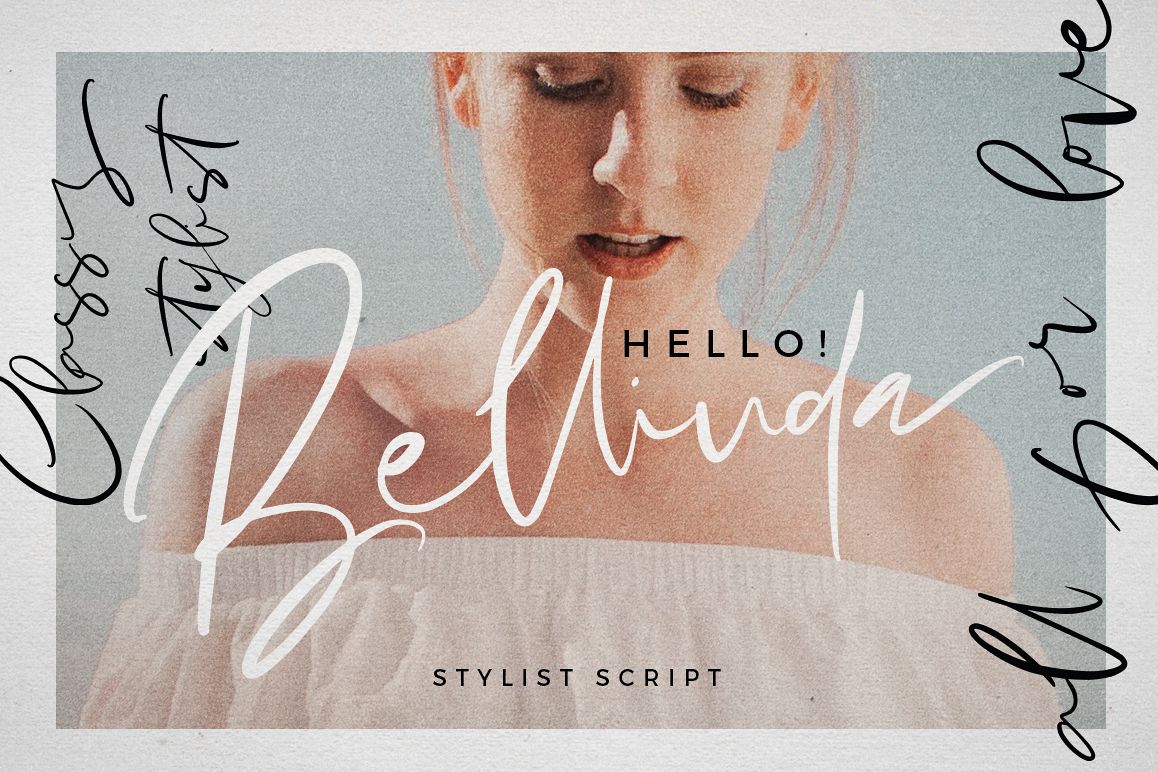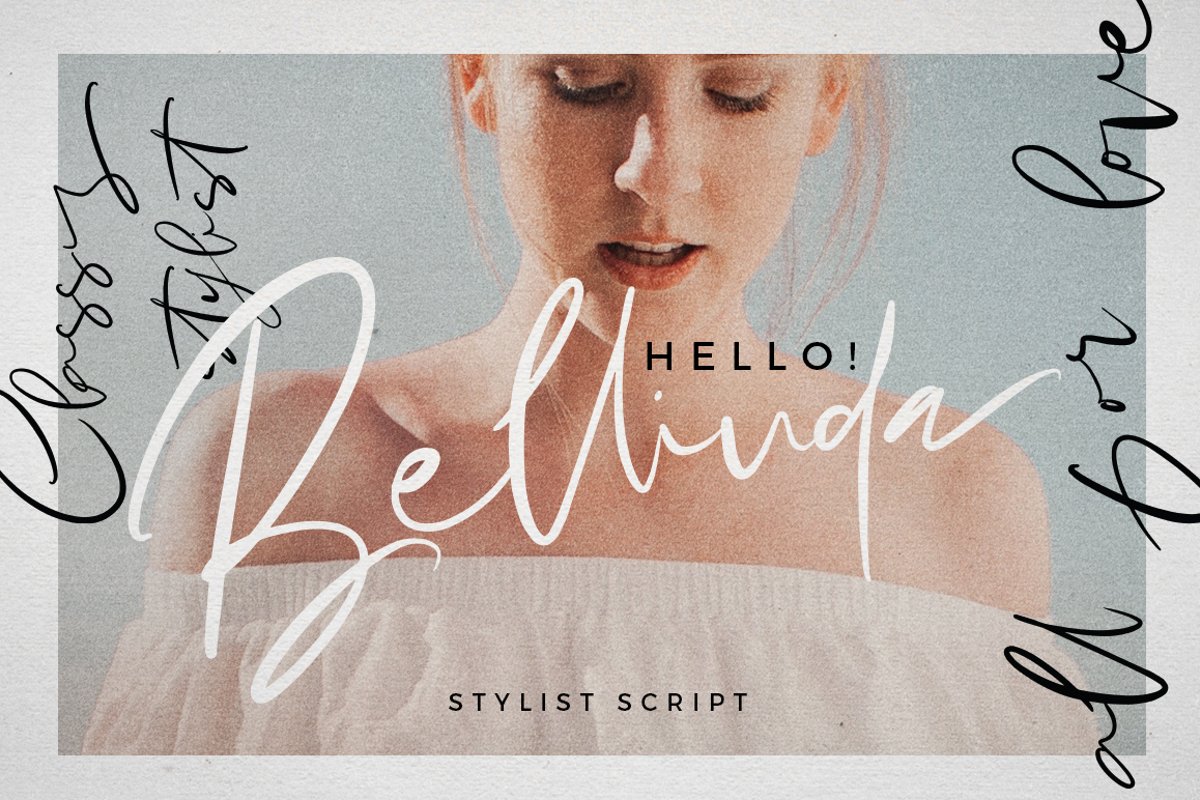
Hello bellinda
Hello Bellinda - a new fresh & modern script with a calligraphy style, a dancing baseline! So beautiful on invitation like greeting cards, branding materials, business cards, quotes, posters, and more!Features :
• Initial Alternates
• Terminal Alternates
• Standard ligatures
• Unique ligatures
• Stylistic sets
• SWASH
• Basic Latin A-Z and a-z
• International Symbols include
• PUA Encode